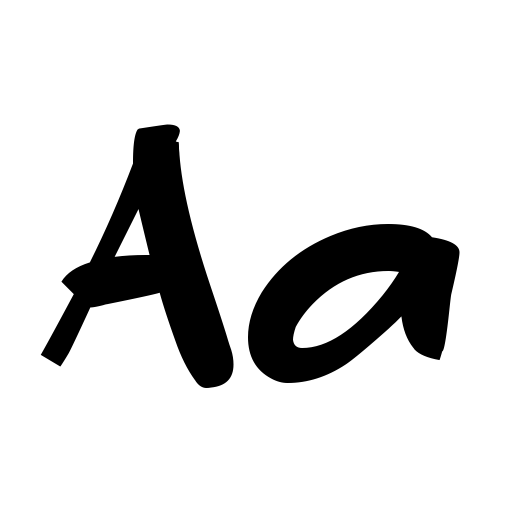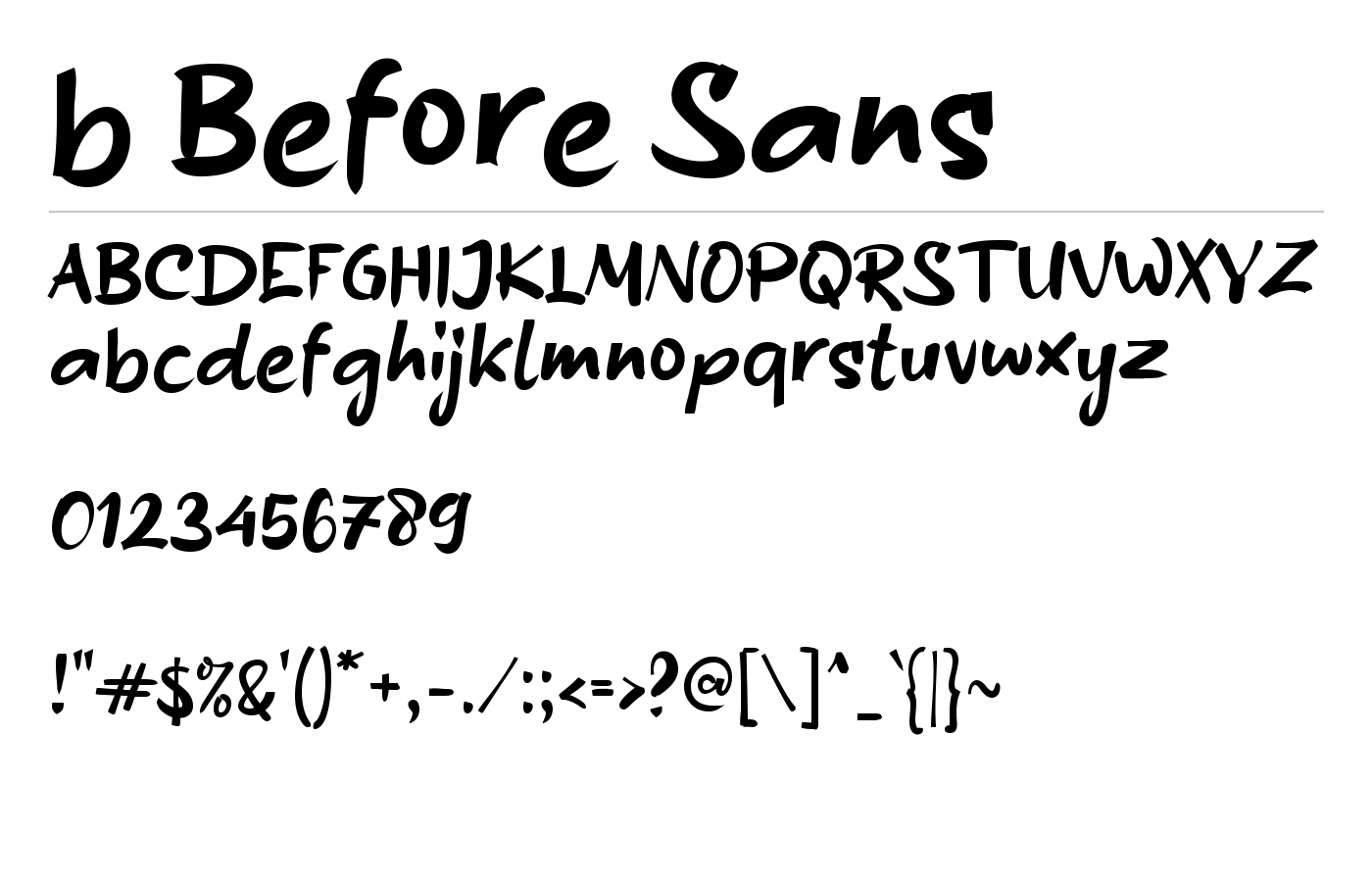
b Before Sans is a lively sans serif font with a handwritten feel, characterized by its medium weight and slightly condensed, playful letterforms. Its casual strokes and uneven shapes create a friendly and approachable vibe, making it perfect for informal branding, children’s materials, and creative headlines that need a warm, human touch. This font works best where a personal and energetic style is desired, adding character without sacrificing readability.
b Before Sans Font
About b Before Sans Font